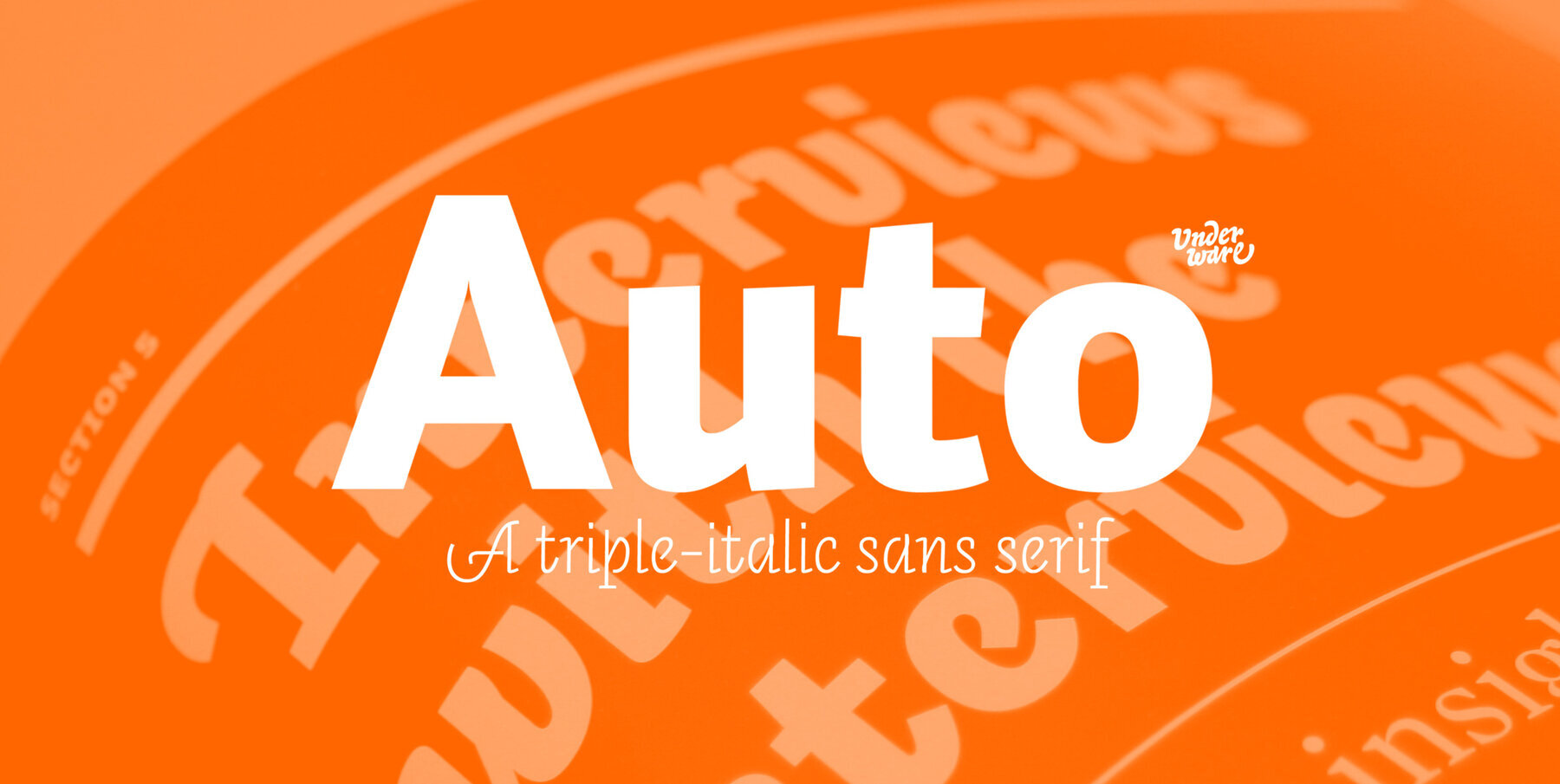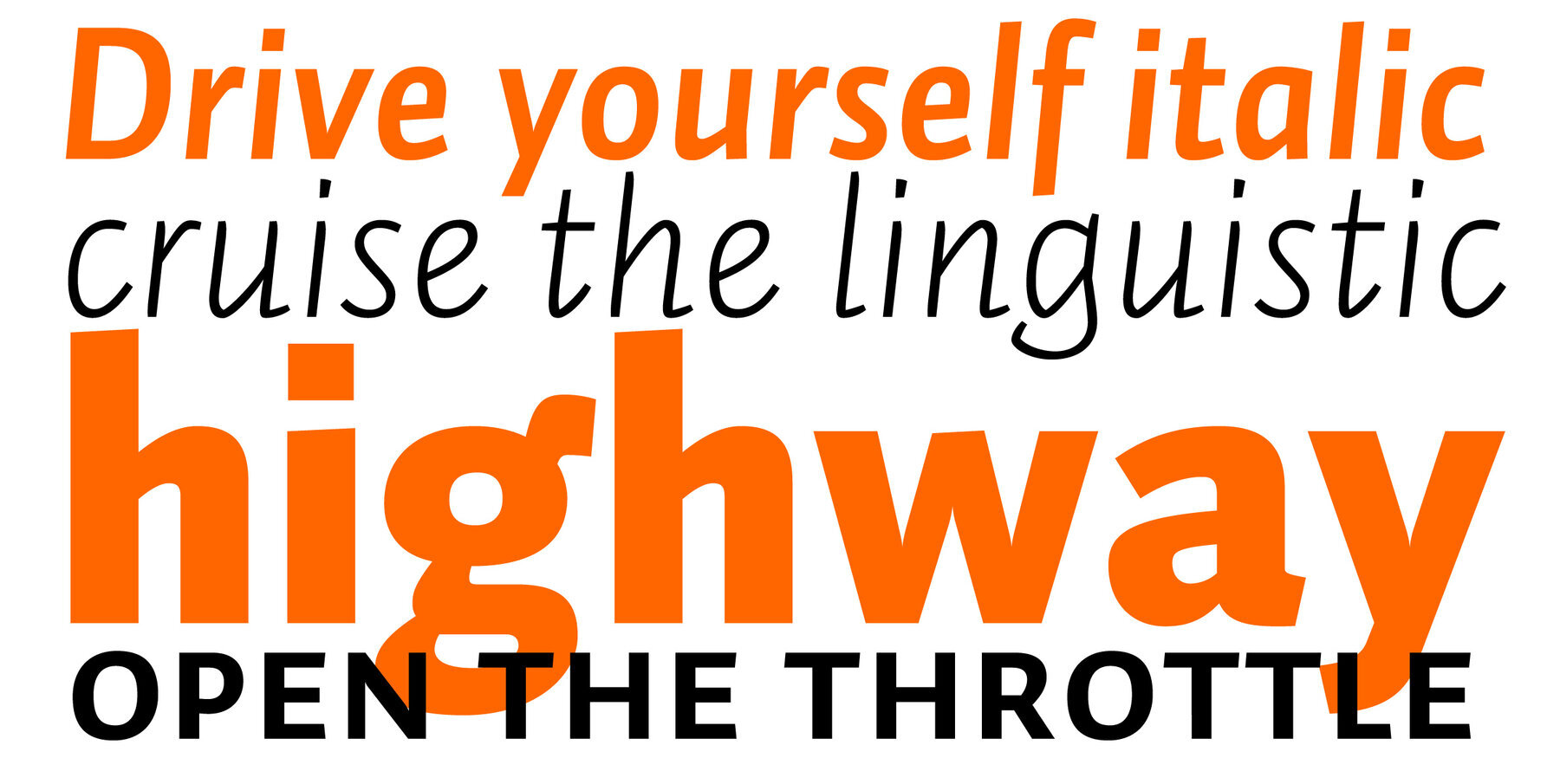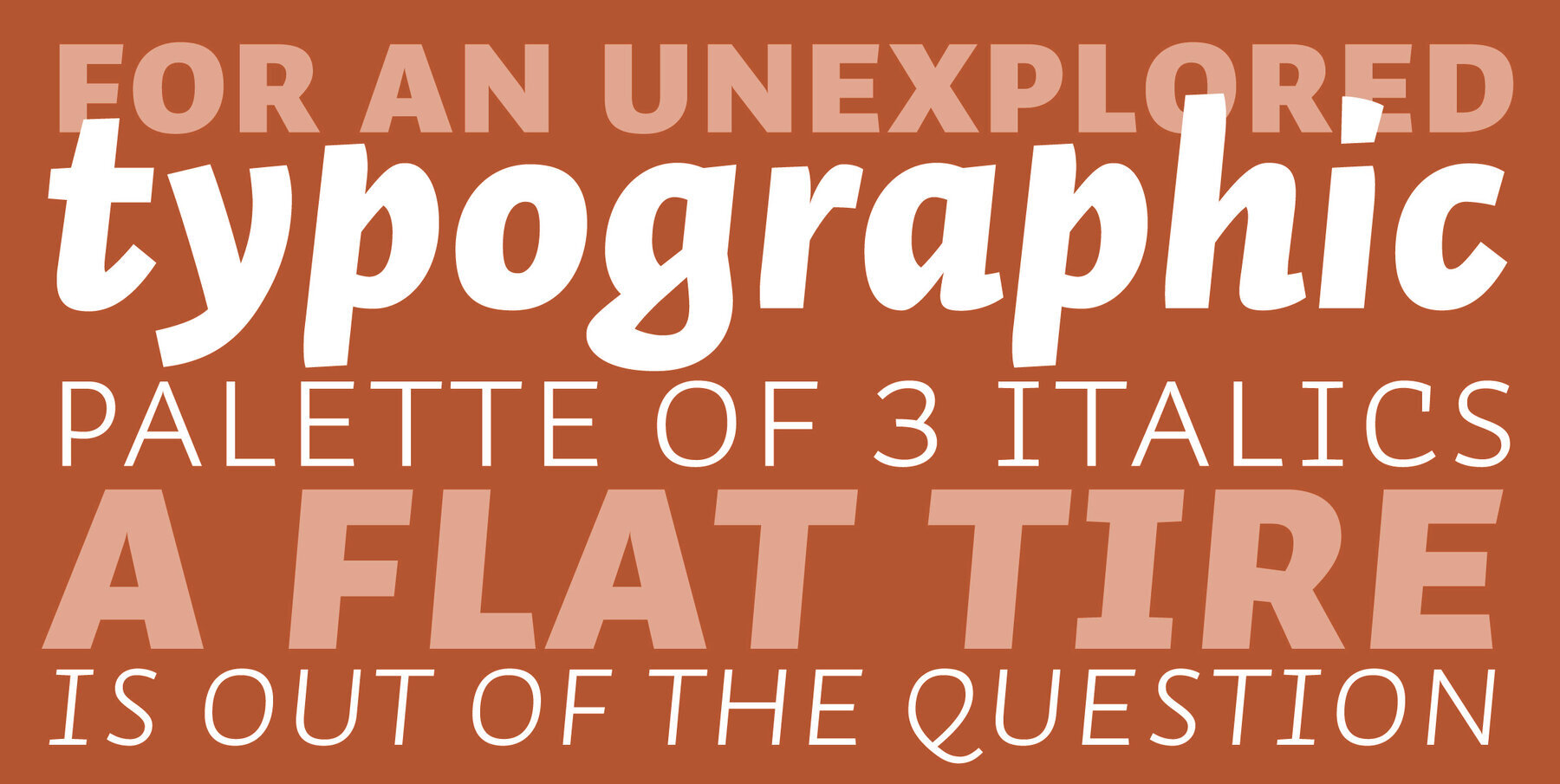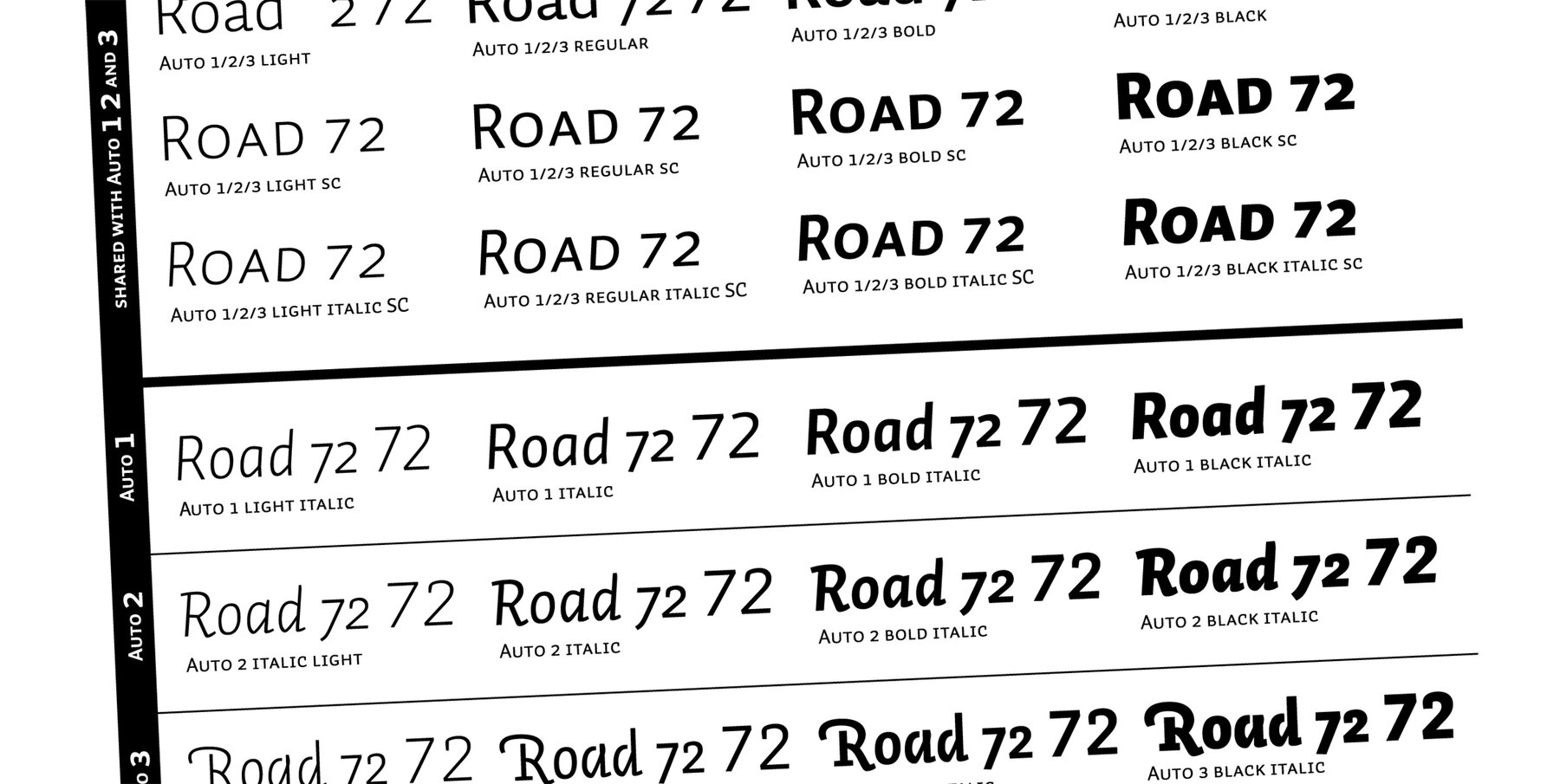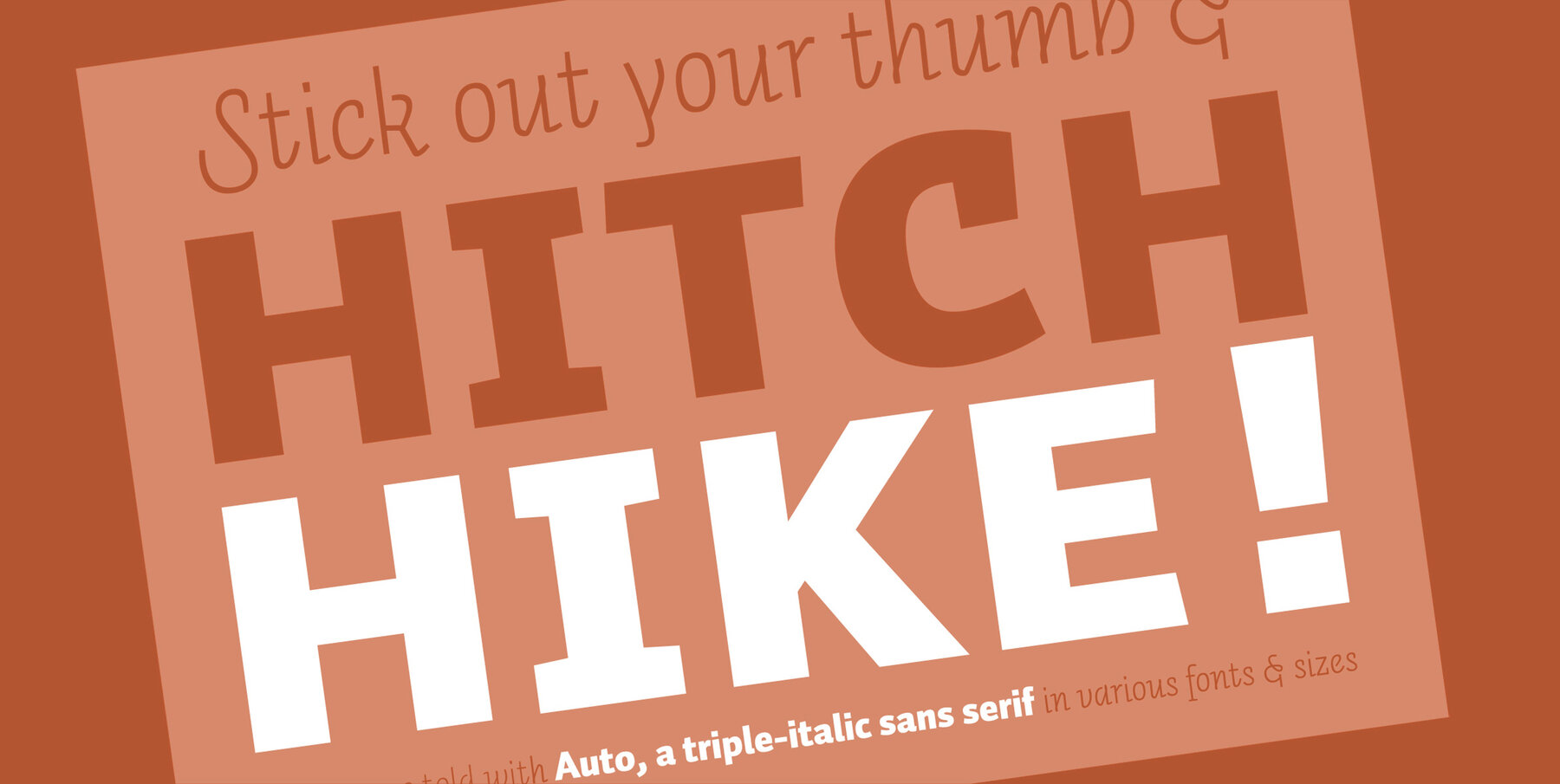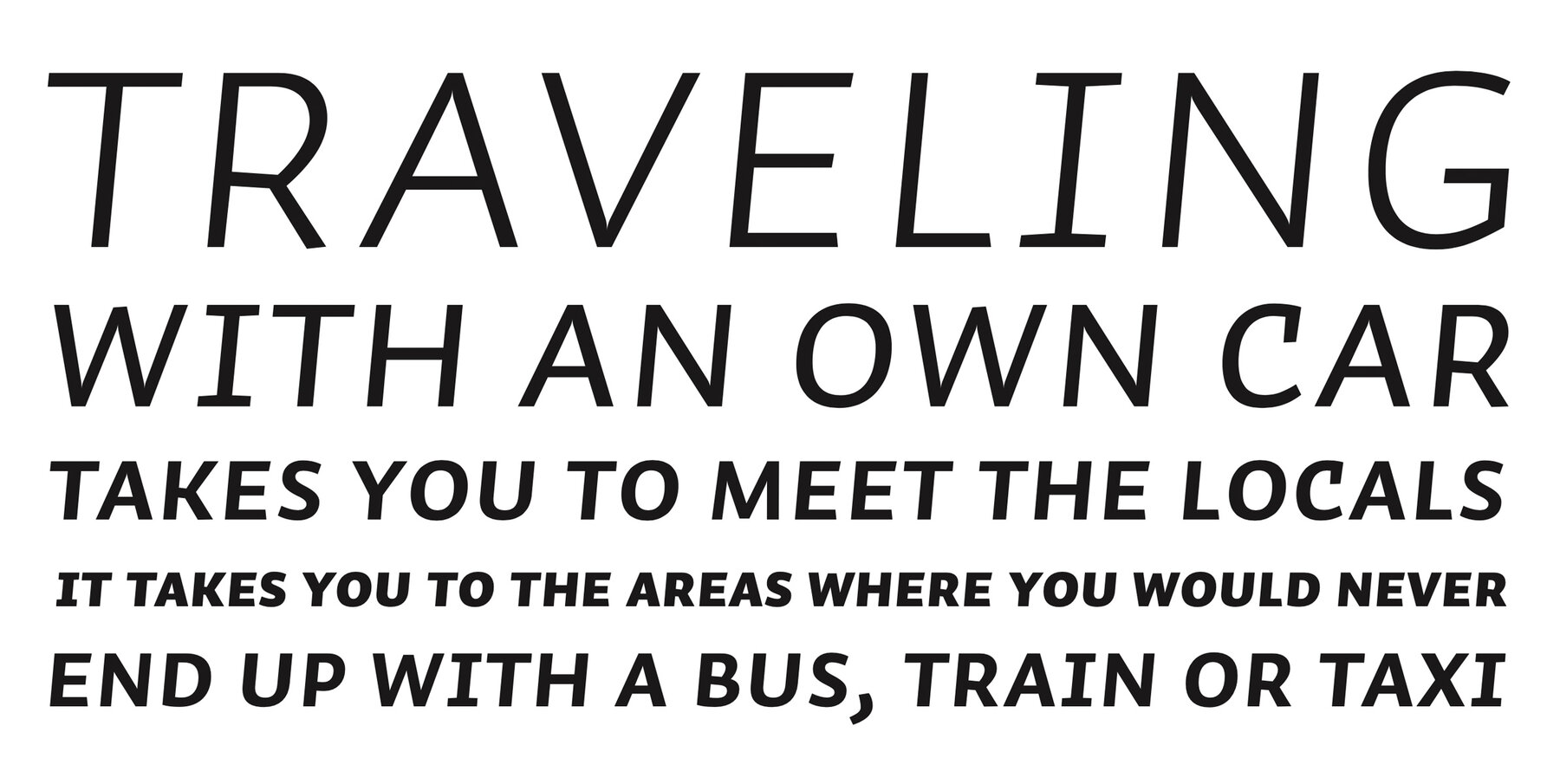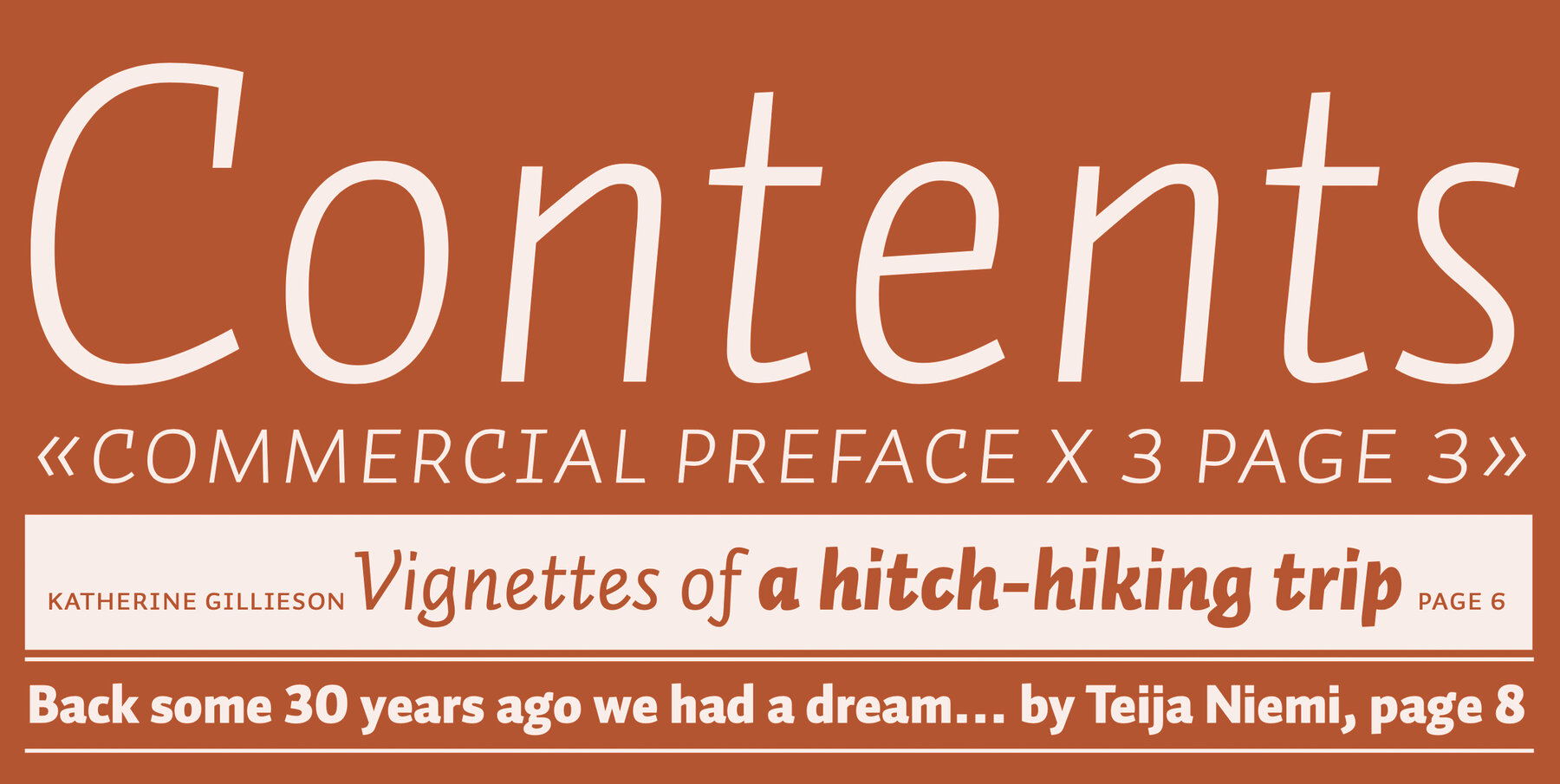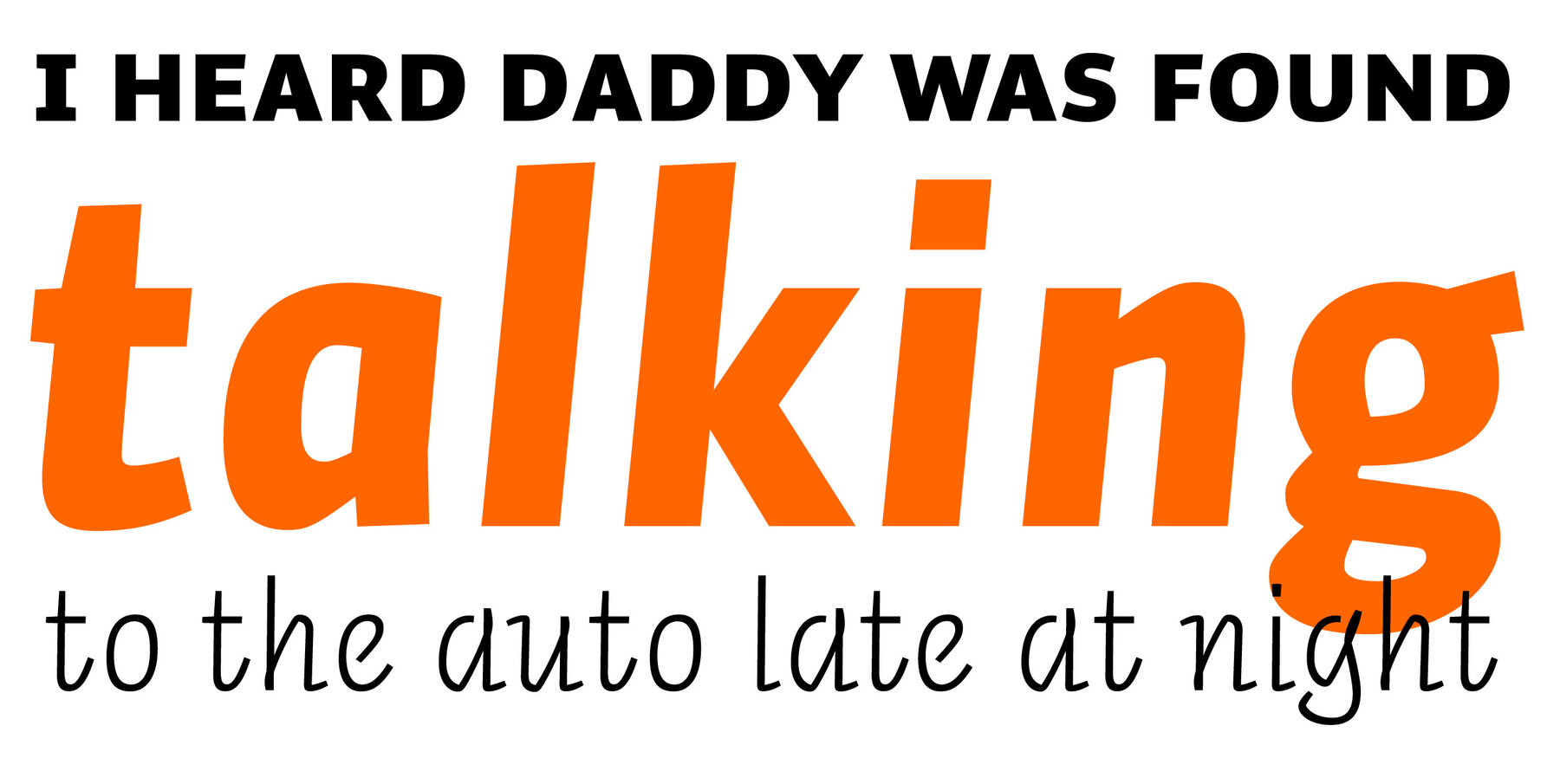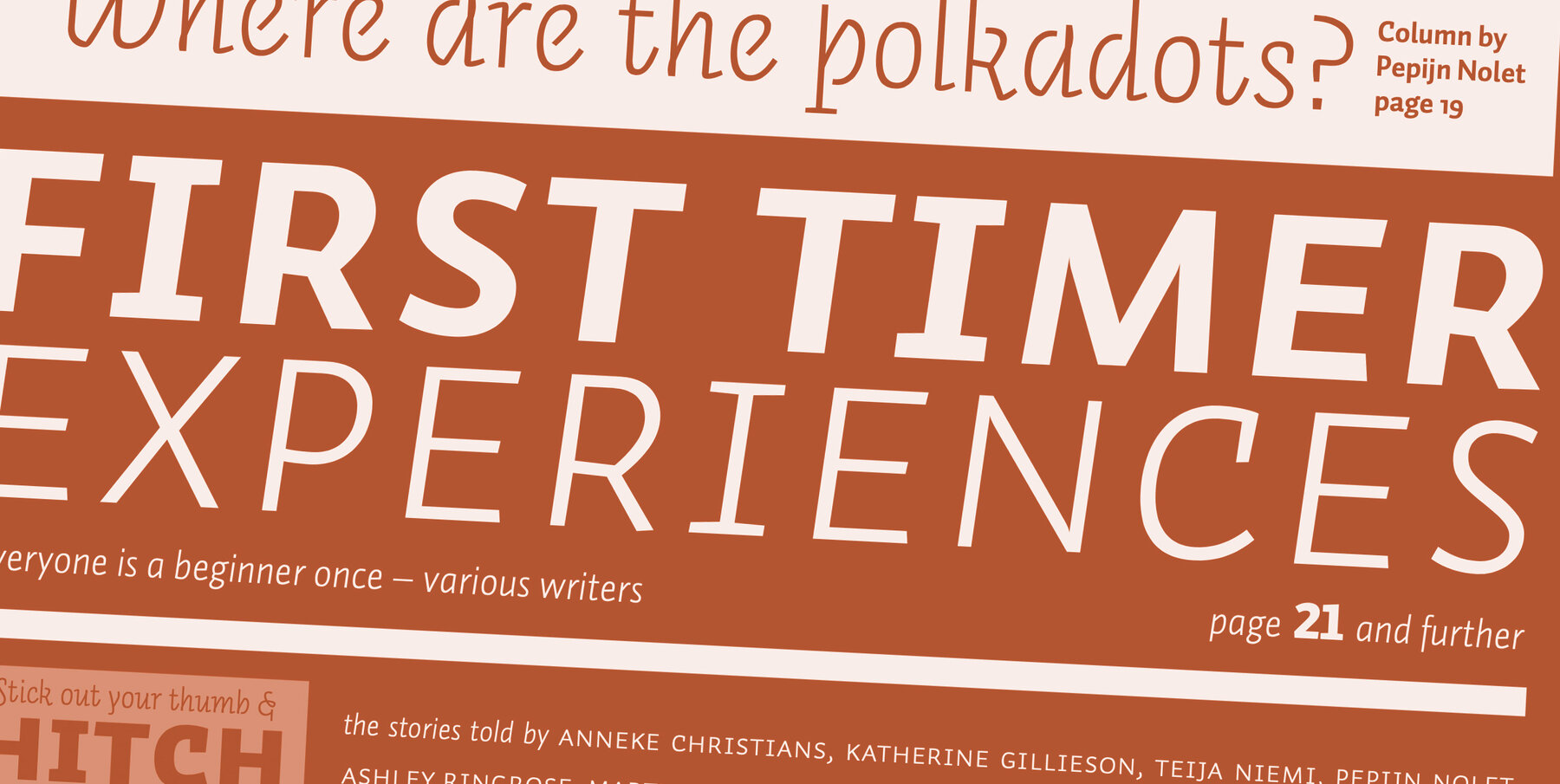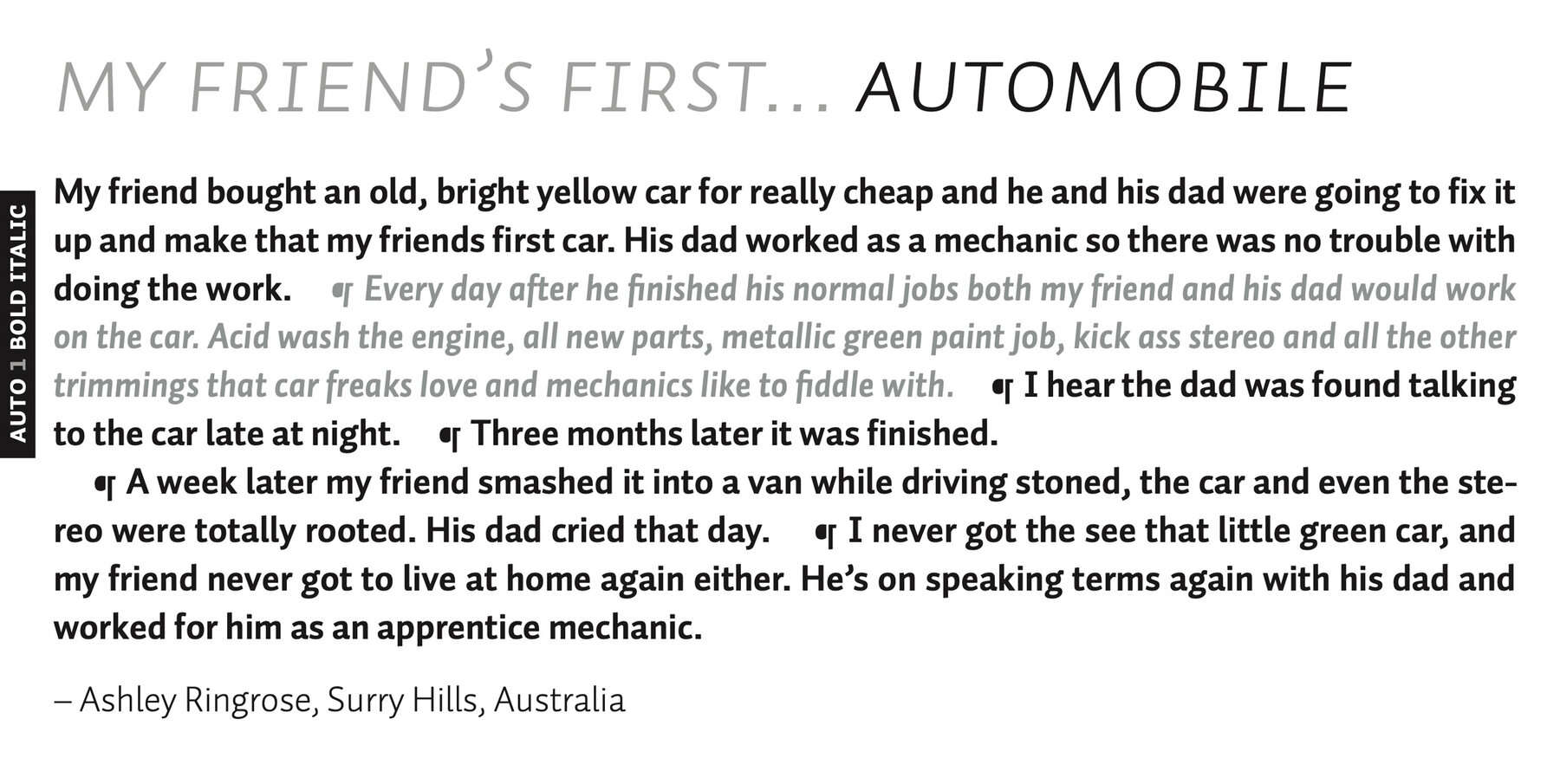
Auto Pro Font
Auto Pro is a warm, humanist sans serif typeface which has three different styles of italics, each with its own flavor. With these three italics, Auto creates a unique typographic palette, allowing the user to drive through unknown typographic and linguistic possibilities. The idea of creating a triple-italic font family came from solving complex typographic tasks. Designating a quotation within a quotation is one example where two different italics can help you to avoid typographic trouble. Or try identifying a quote within spoken text in a novel, or identifying different speakers in plays and manuscripts. Synergize their forces - get these three italics rolling! Of course you also just use one italic at a time. Pick the one you prefer the most or suits the best. Also, because of four weights and the three different figure styles, it’s a vehicle equipped for many roads of typography. Comes with Underware’s Latin Plus character set with a support for 219 languages. Take a cruise, and let this typeface carry you to business or leisure.
Zealotry wouldn’t be an inappropriate collective noun for Underware. They not only design typefaces, they live type—they educate about type, they publish about type, they talk about type, they want (and organise) others to talk about type.There is an inherent honesty to their enthusiasm that betrays no...